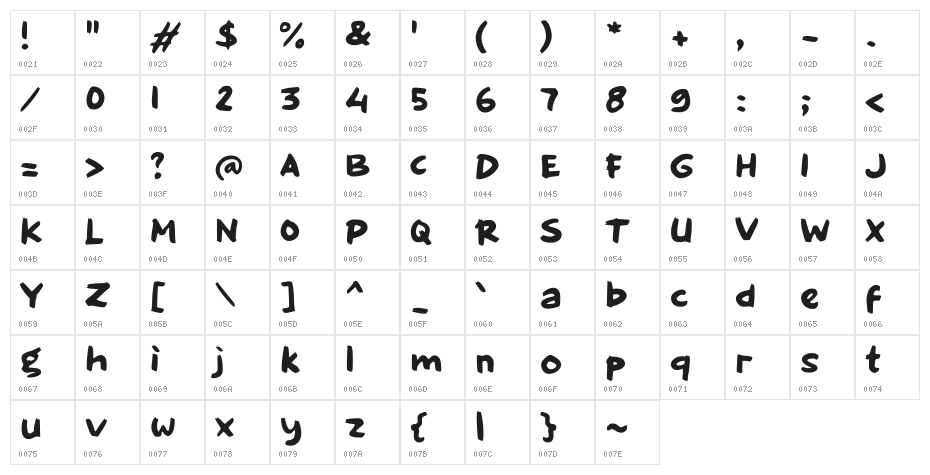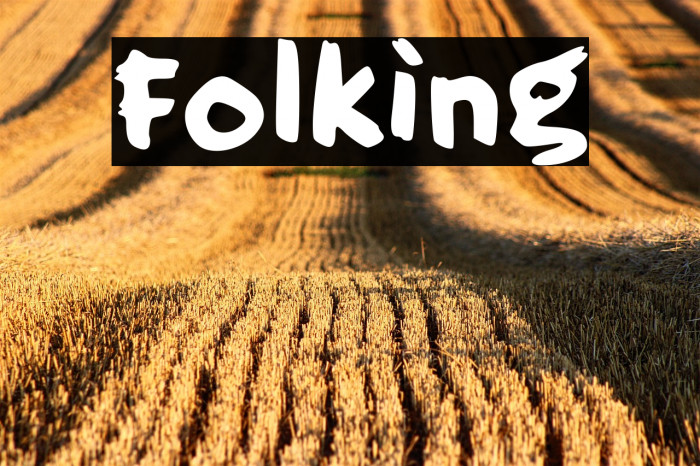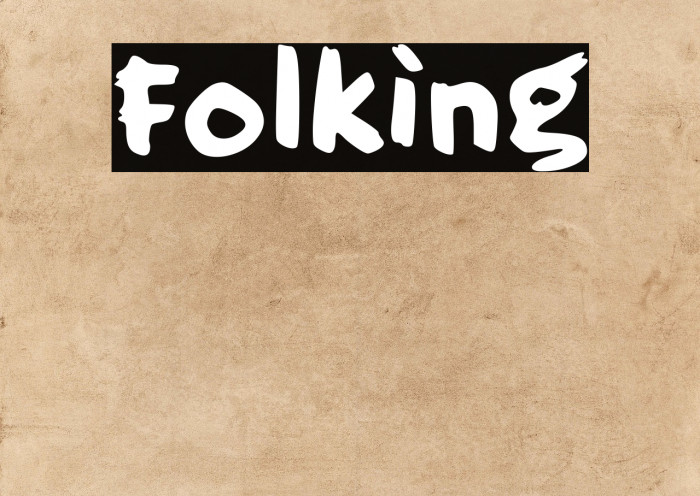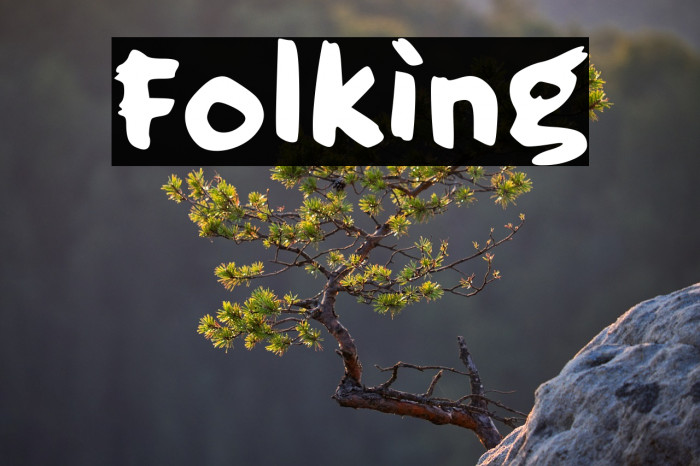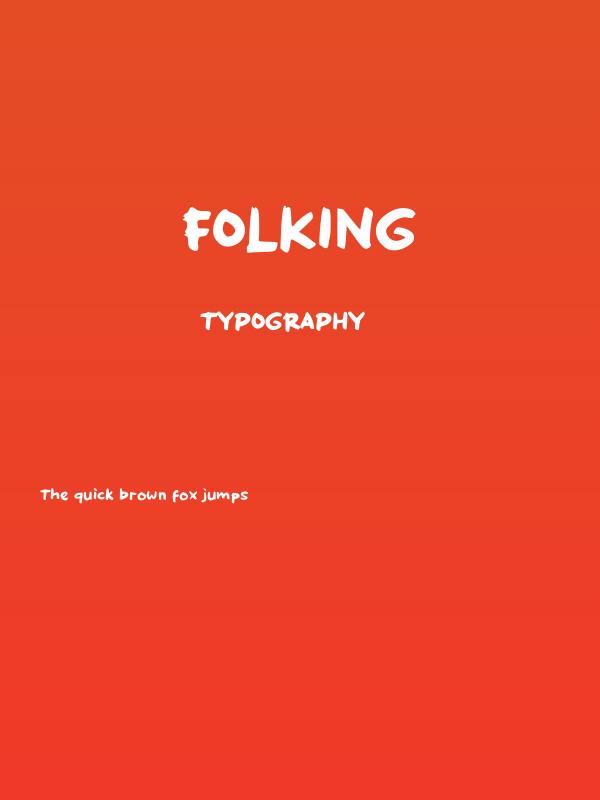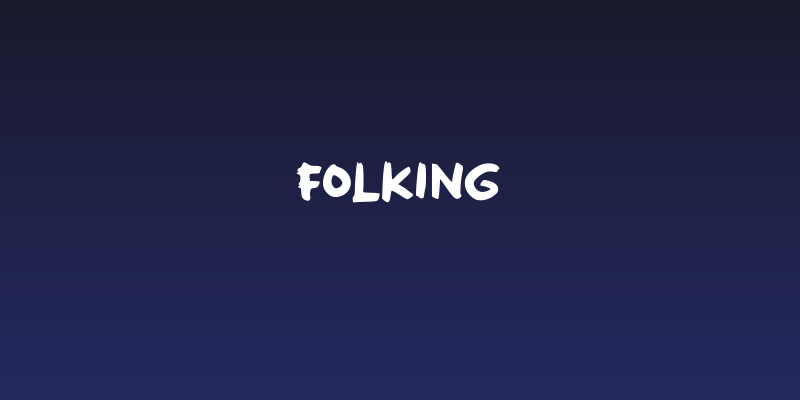
Folking Font
Folking Description
This font exudes a playful and bold character, with its thick strokes and slightly irregular shapes that give it a hand-drawn appearance. The letters are rounded and full, creating a sense of warmth and friendliness. The uppercase and lowercase letters maintain a consistent style, with the lowercase letters slightly smaller but equally bold. Numbers and special characters follow the same design ethos, ensuring uniformity across all glyphs. The font's organic feel makes it suitable for projects that require a personal touch or a casual vibe.
| Overall Style | Playful |
| Use Case | Logos, Headlines, Posters |
| Proposed Projects | Ideal for children's books, playful branding, casual invitations, and creative posters. |